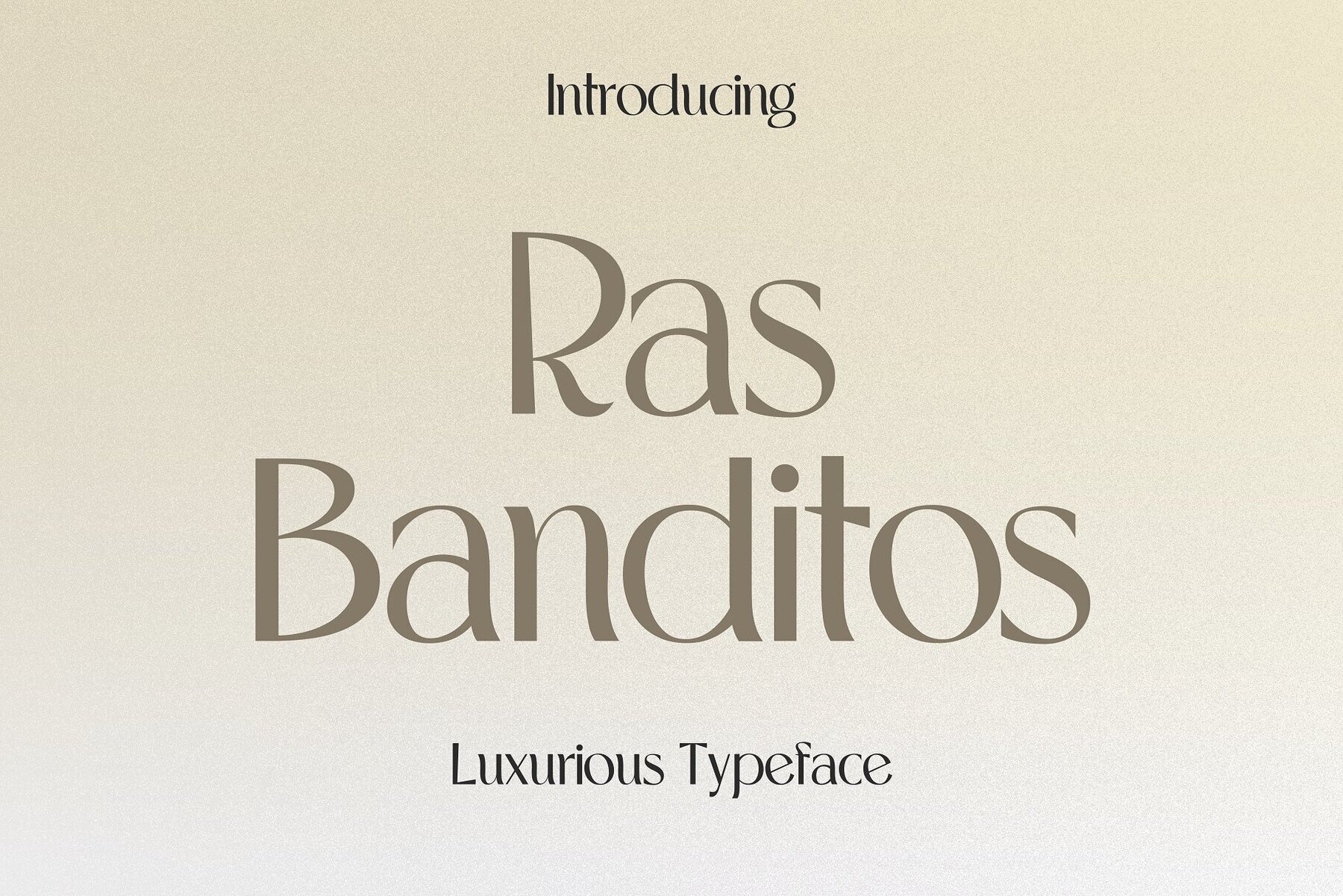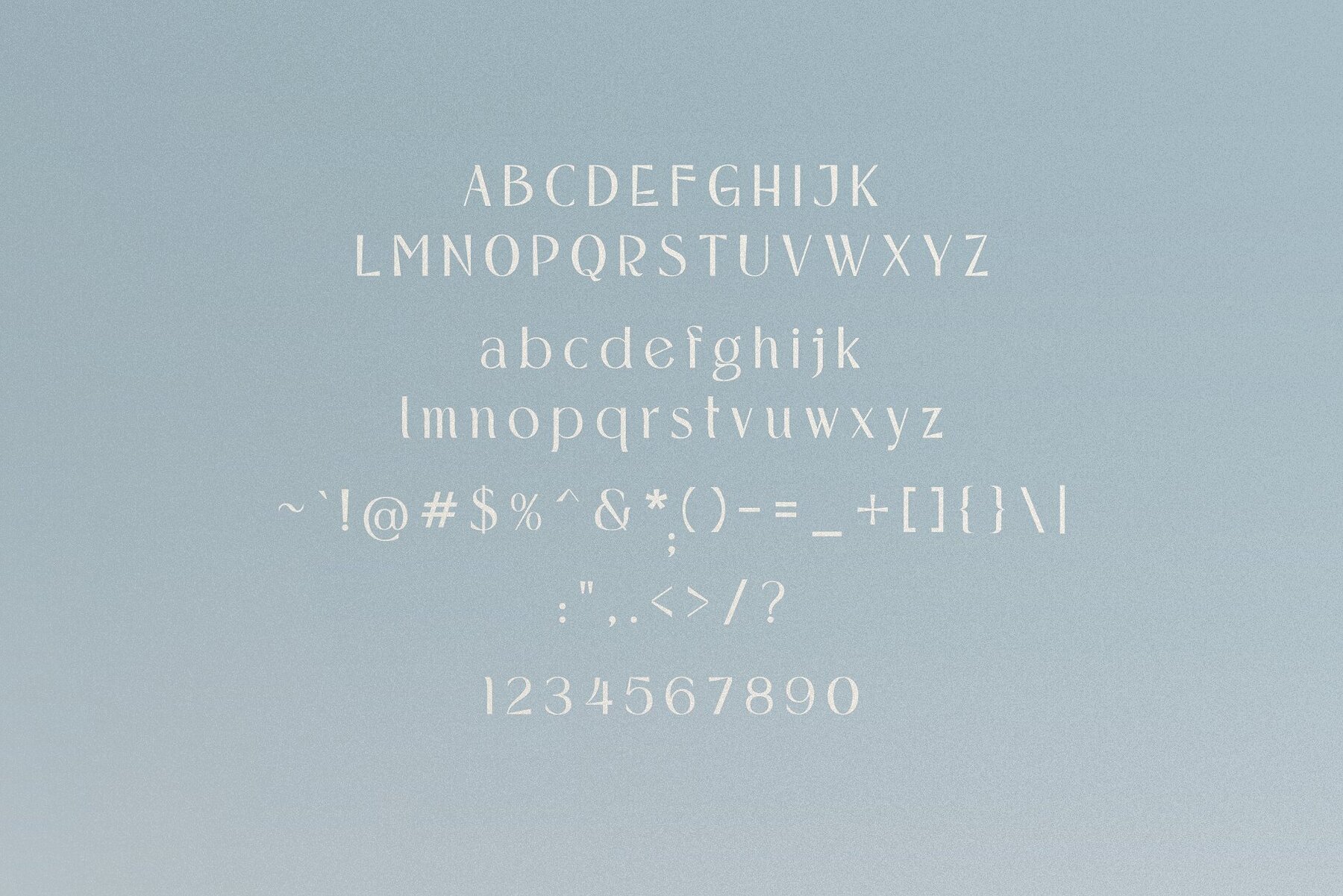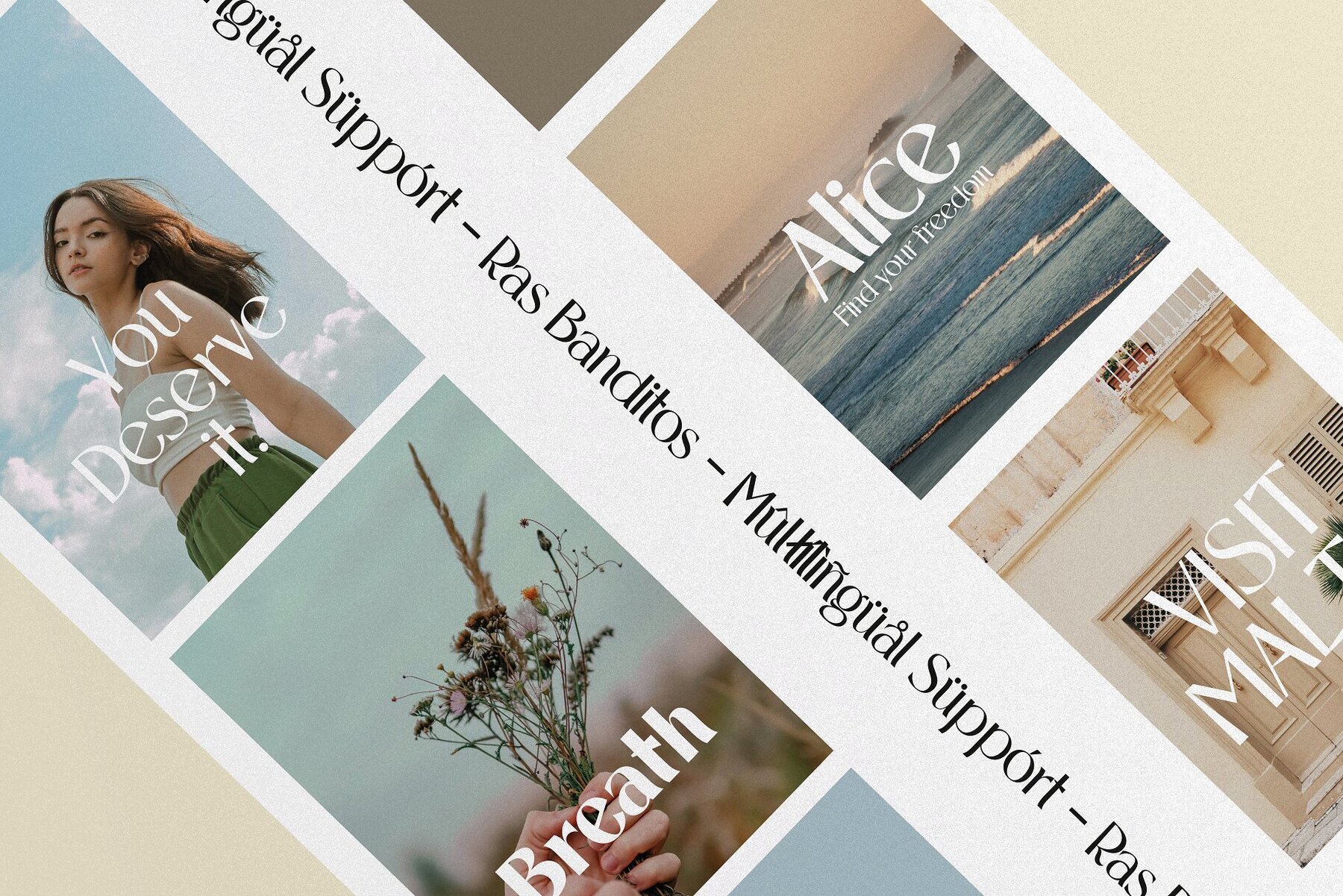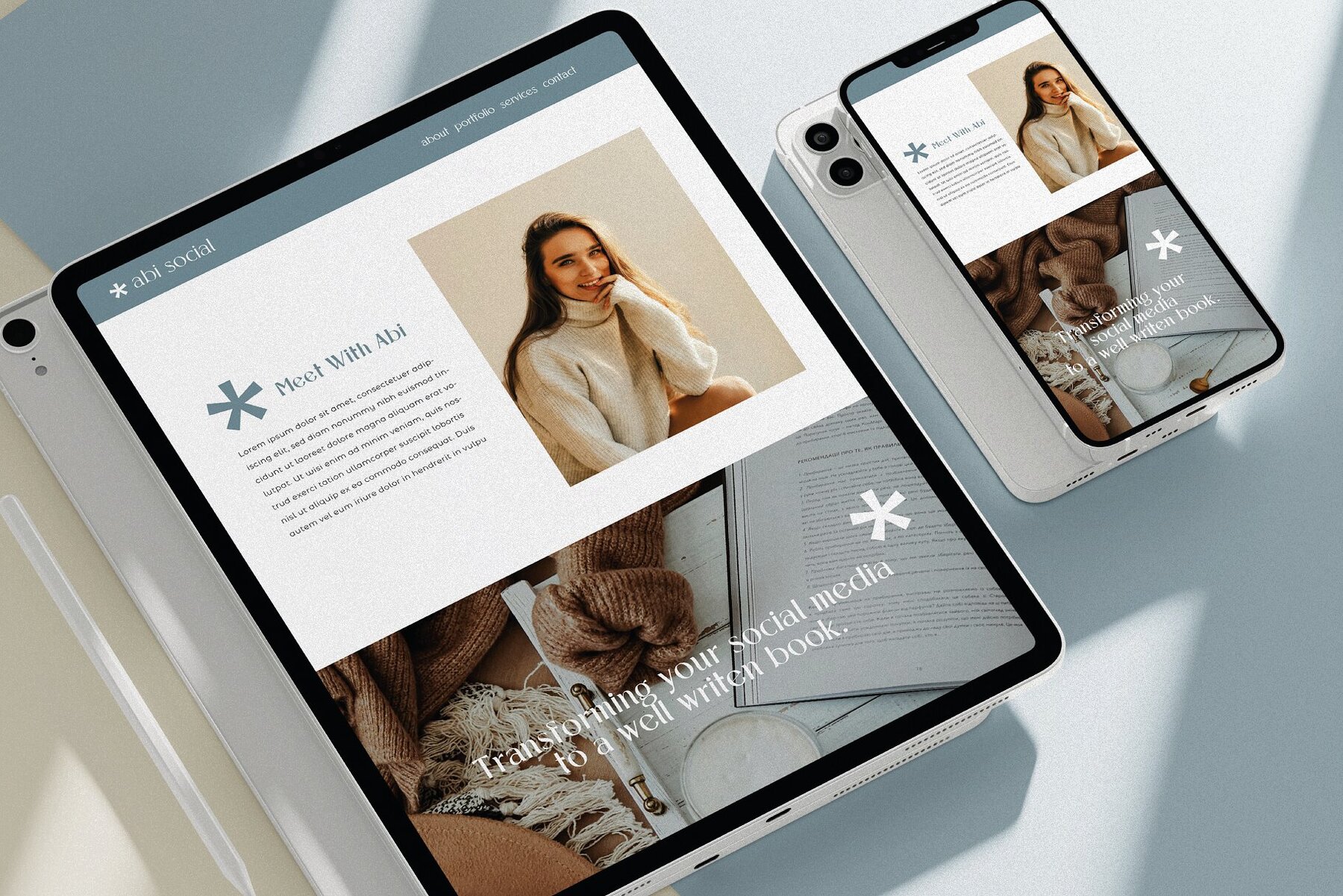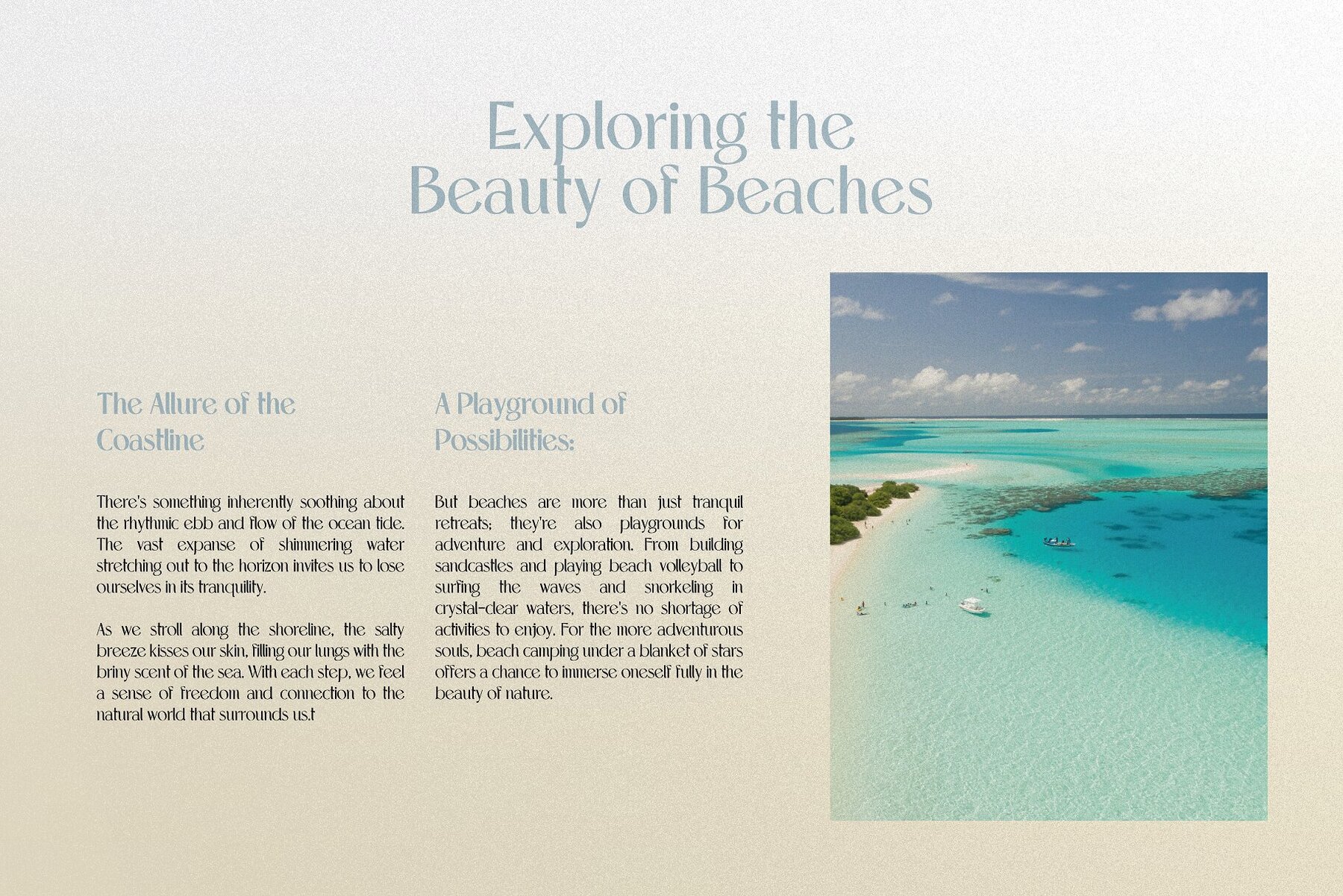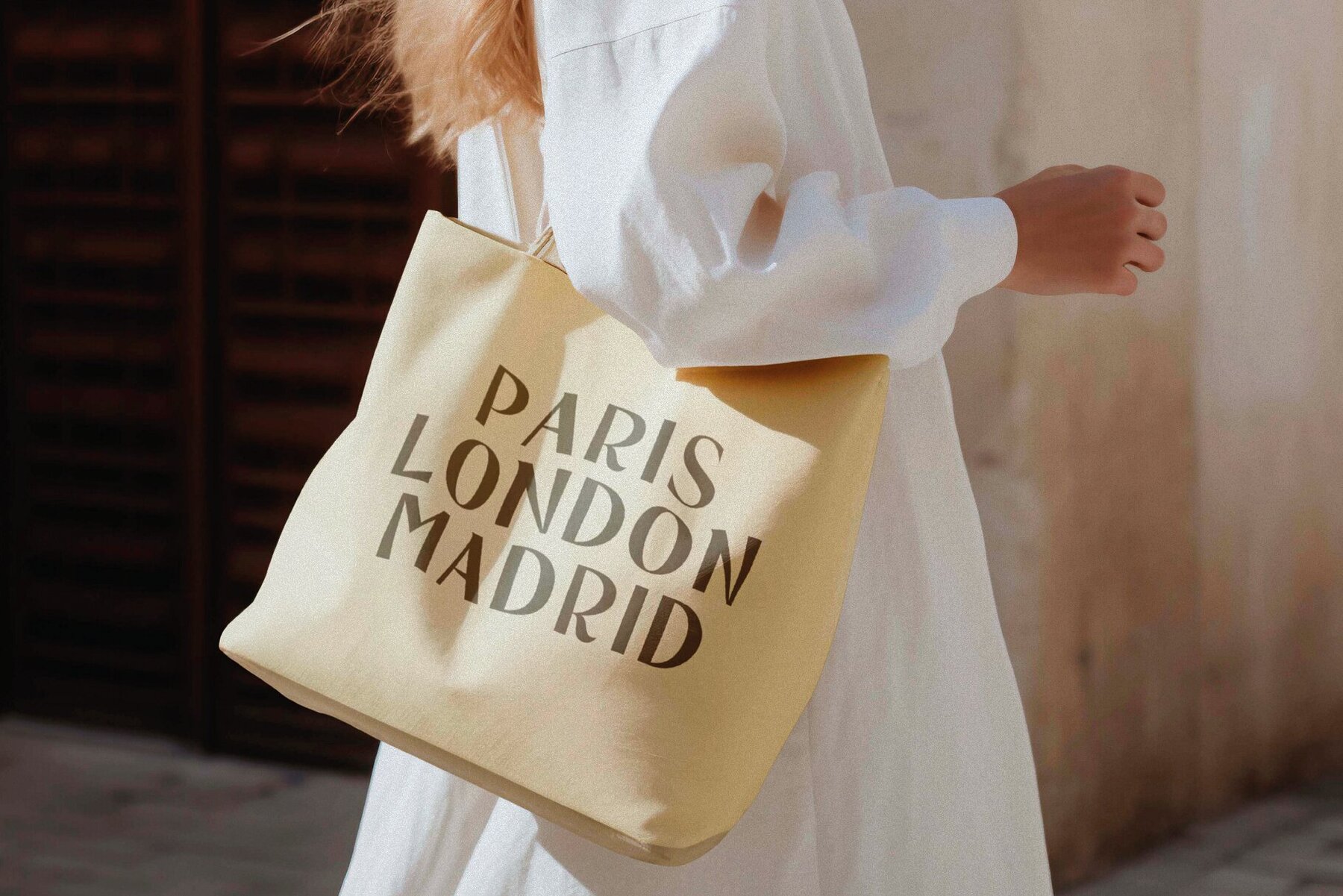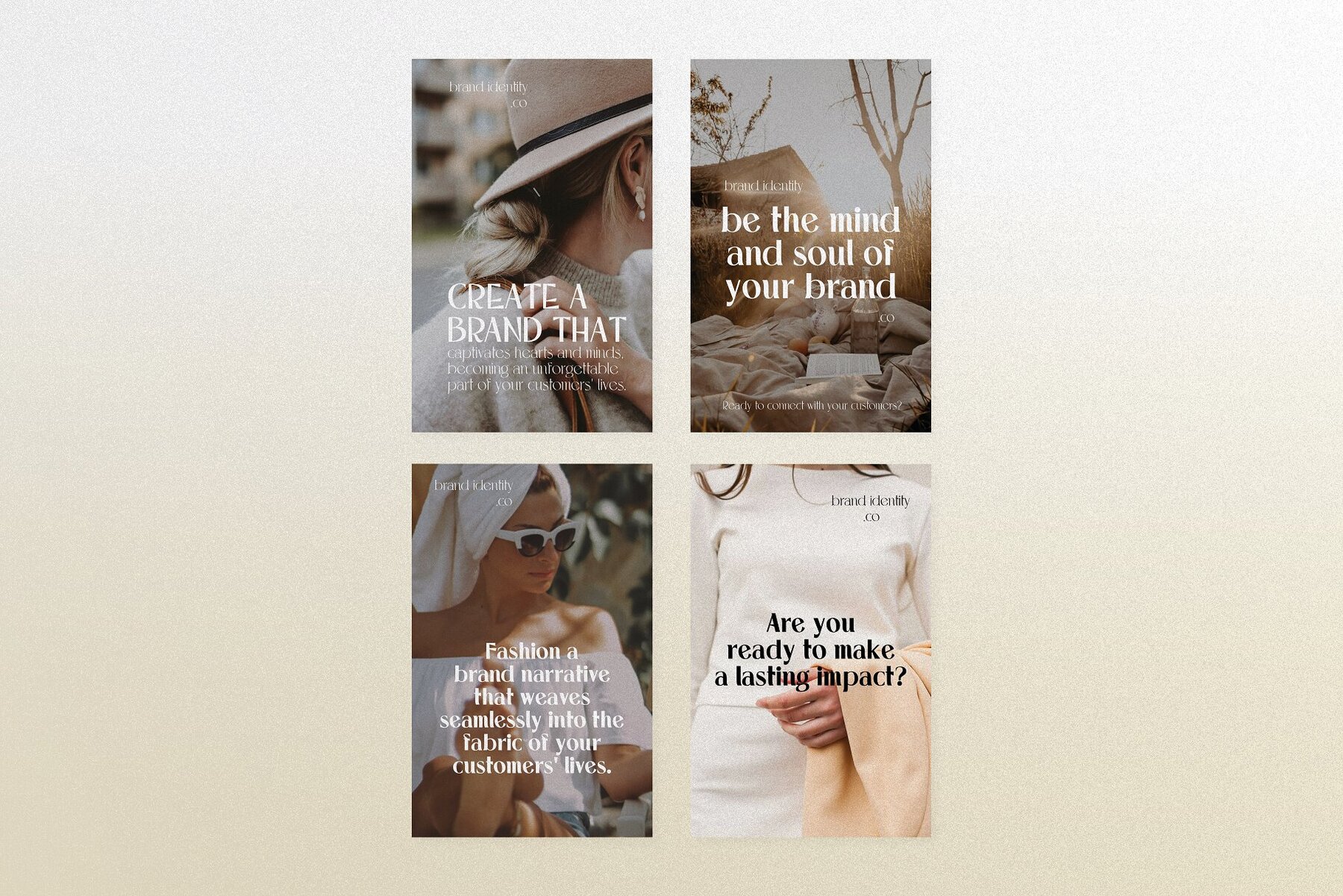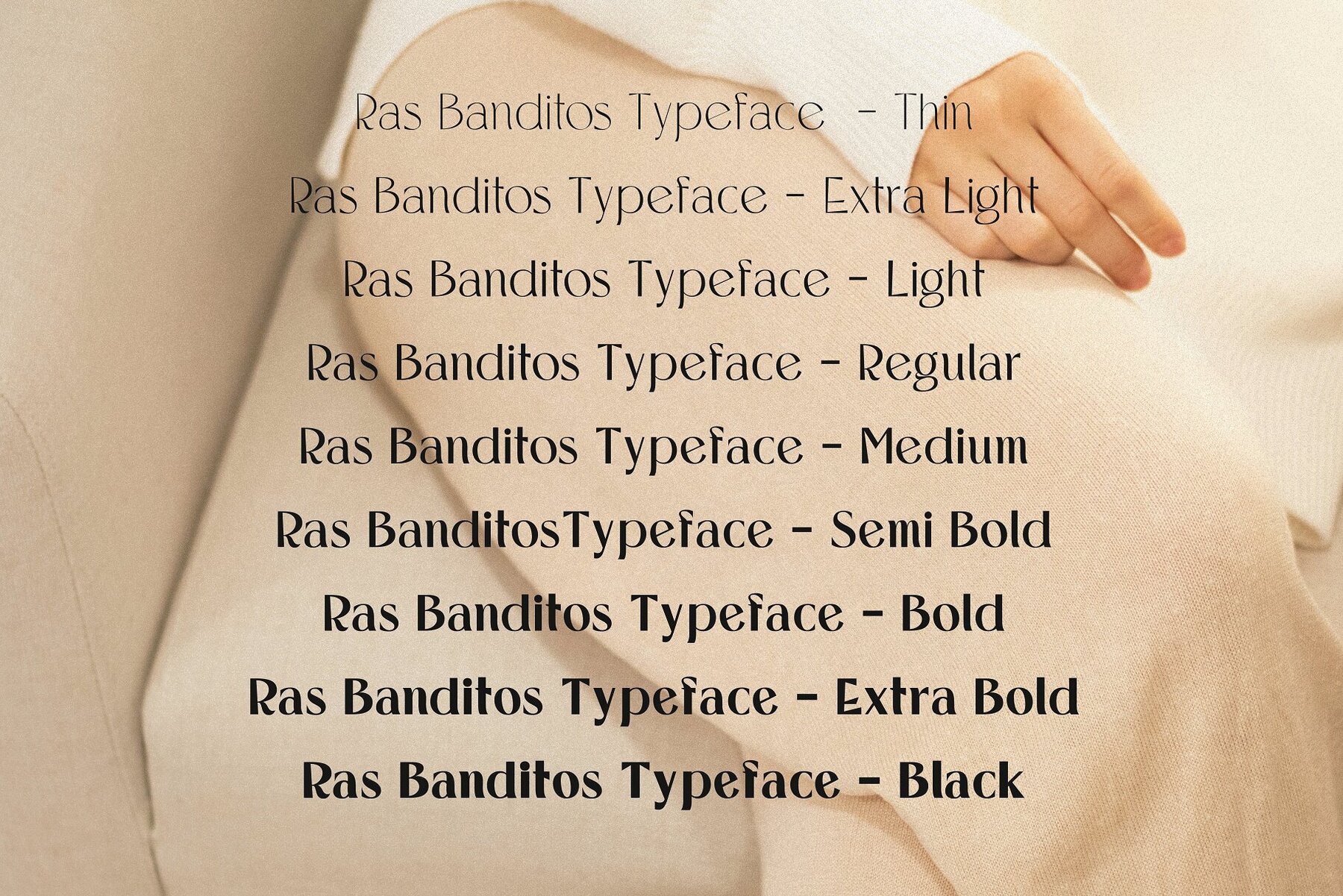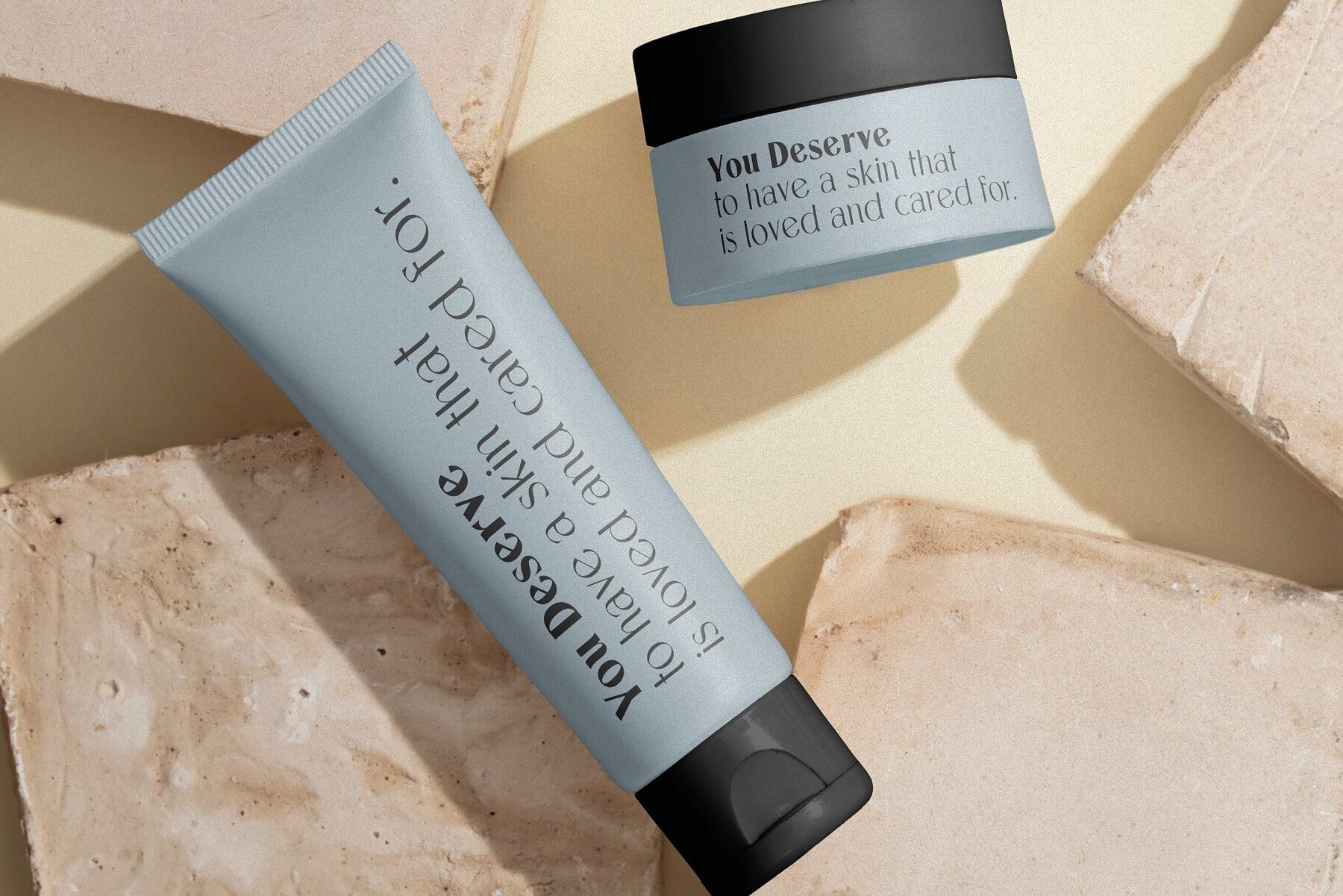
Ras Banditos Font
Introducing Ras Banditos – the ultimate luxury typeface designed to elevate your creative projects to new heights! This exquisite font embodies elegance and sophistication, seamlessly blending classic charm with contemporary flair. Perfect for high-end branding, lavish invitations, and chic editorial designs, Ras Banditos is your go-to choice for making a bold statement. With its graceful curves and refined lines, Ras Banditos captures the essence of opulence. The font's unique style exudes a sense of exclusivity, ensuring your designs stand out in a world of ordinary. Whether you're crafting a logo for a luxury brand, designing a wedding invitation, or creating captivating magazine layouts, Ras Banditos offers unparalleled versatility and timeless beauty. Experience the allure of Ras Banditos – a luxurious typeface that transforms ordinary text into extraordinary masterpieces. Embrace the elegance and sophistication of Ras Banditos, and let your creativity shine. Elevate your design projects and captivate your audience with the unparalleled beauty of Ras Banditos. Purchase now and add a touch of luxury to your typography collection!